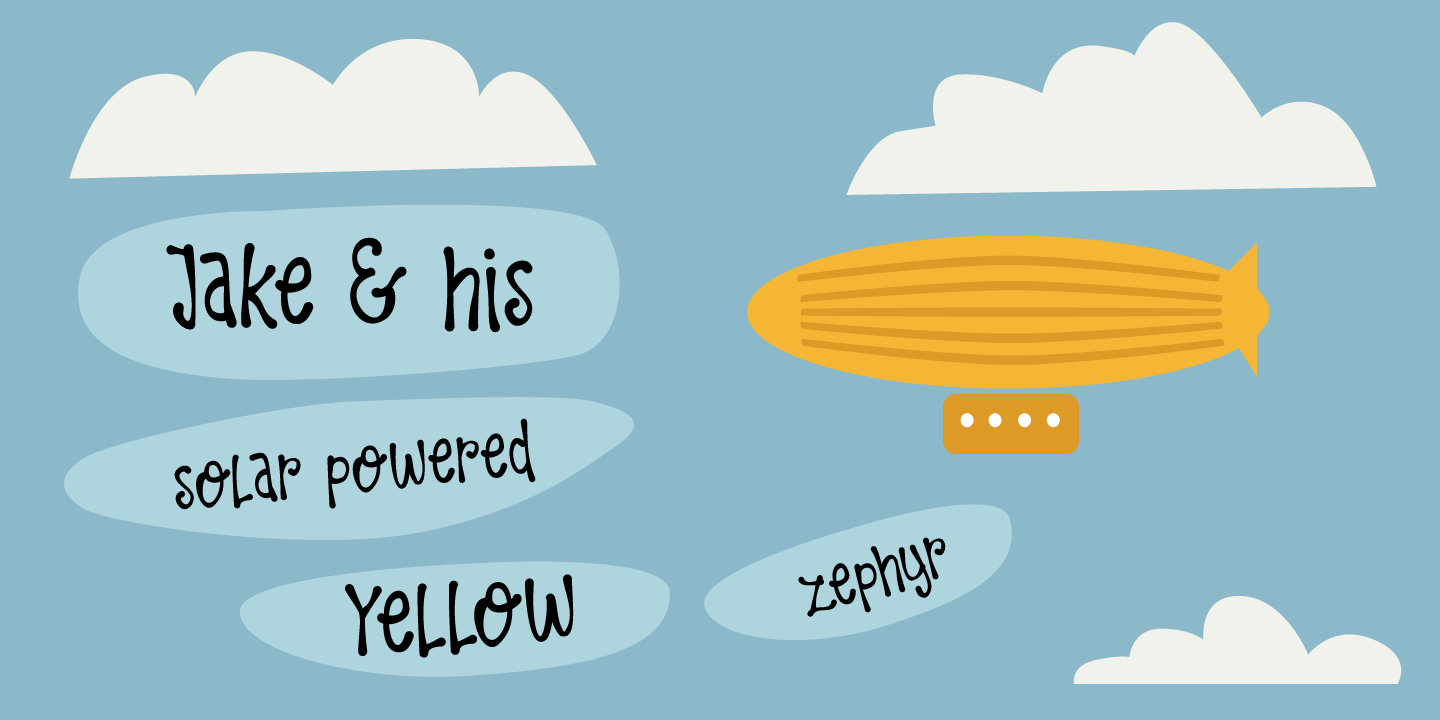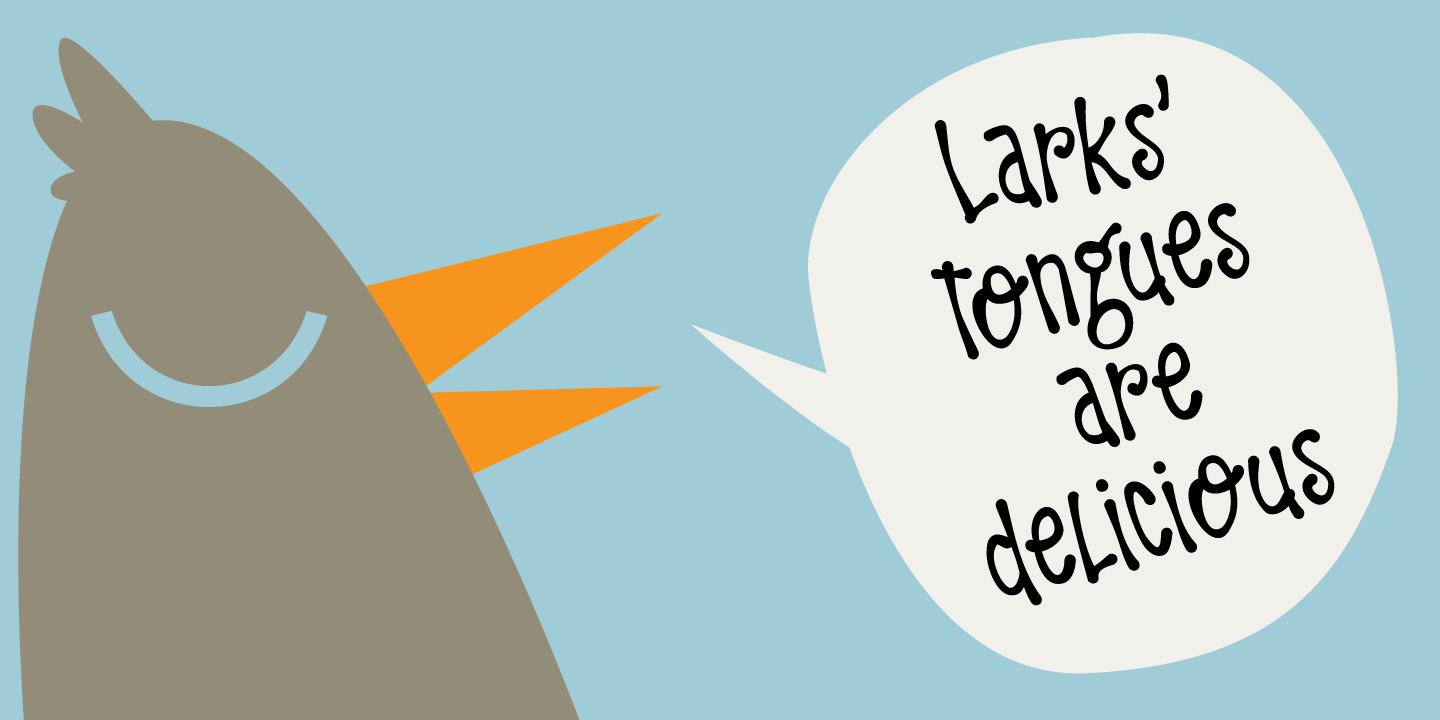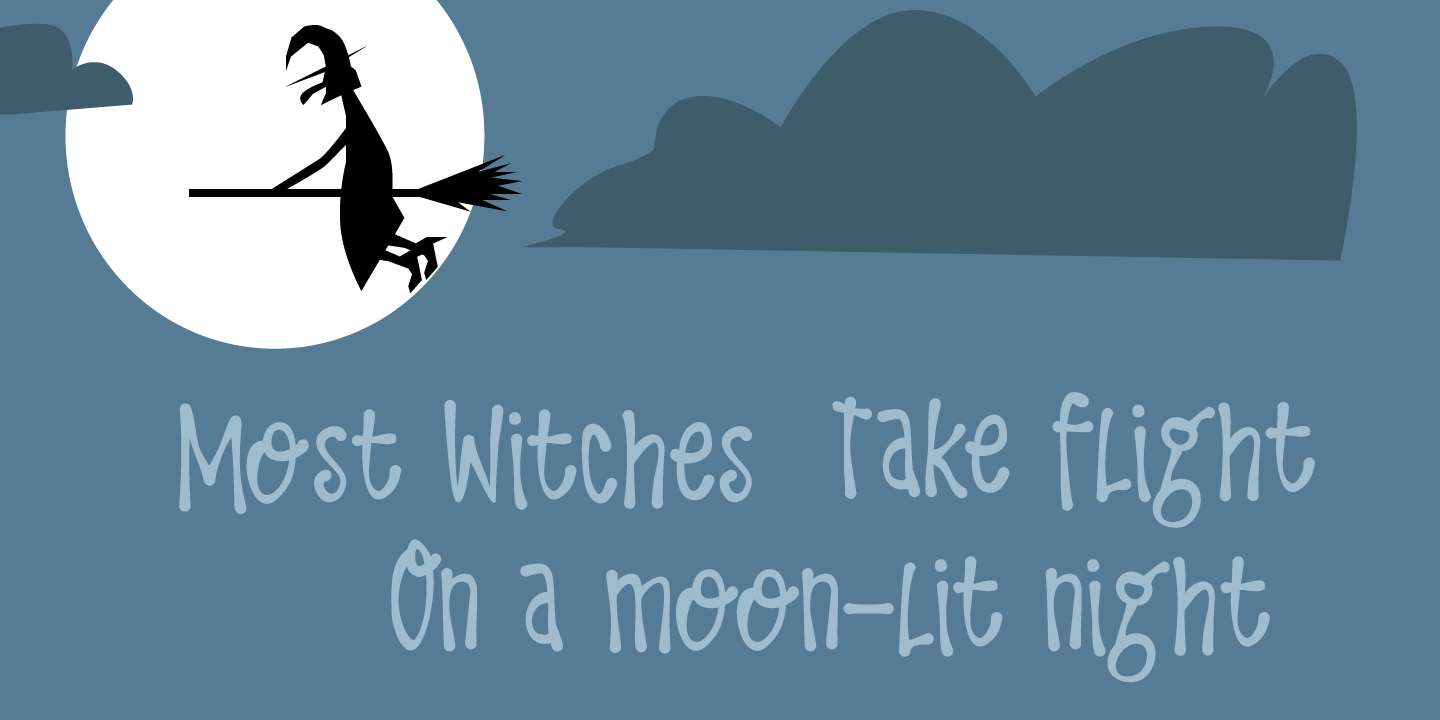
Larks Tongues
Larks Tongues in Aspic is the fifth studio album (released in 1973) by the English progressive rock group King Crimson. I have always liked this name, as it reminded me of old stories in which witches threw all kinds of weird ingredients (larks? tongues, bat wings and petrified dragon dung) into a big cauldron. When I created this font, it looked like the writing in an old book of spells, so I just had to call it Larks Tongues.
Larks Tongues is a very lively headline font which would look good on (children's) book covers, posters and product packaging. So, if you are about to write a book about witches, want to throw a halloween party or want to market your Larks Tongues in Aspic, then by all means, use this font!
Comes with a magical amount of diacritics.